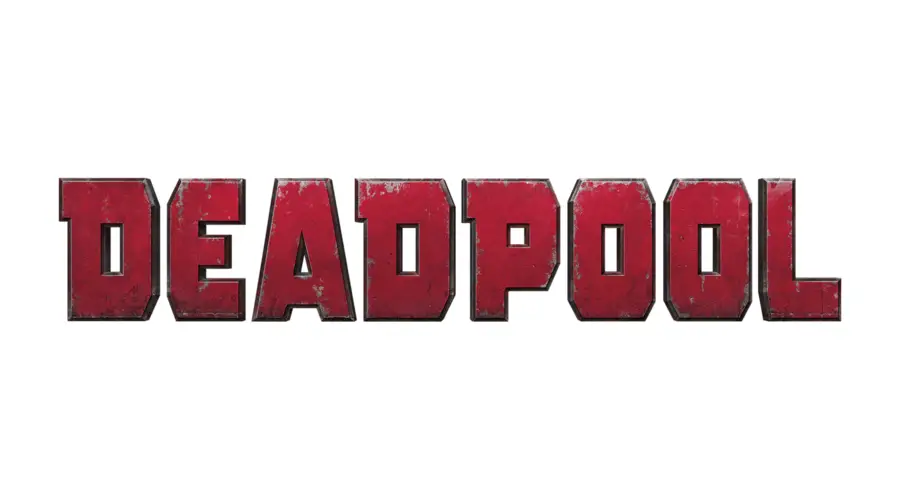
Quick answer: Marvel’s public Deadpool page shows the movie logo but does not name a downloadable official typeface. Rogue Hero and 946 Latin Dense 5 are useful alternatives for comparing the heavy, condensed comic-title feel; neither is presented here as Marvel’s logo source.
Use the logo and posters on Marvel’s official Deadpool movie page as the primary visual reference. The page identifies the film and displays official artwork, but it does not provide a public font credit. That absence is why this guide uses “alternative” rather than “replica” or “original.”
Preview Deadpool-style alternatives
Rogue Hero offers an angular comic-book voice, while 946 Latin Dense 5 provides a more structured condensed display option. Compare the same short word in both, then judge width, counters, and edge treatment instead of choosing only from the sample image.
What the visual comparison shows
The official mark combines very heavy letters, tight spacing, and designed distress or cut details. Those effects can come from custom artwork rather than the underlying font. A close alphabet can still need manual spacing, texture, and shape edits, so the result should be described as inspired by the visual language rather than an exact reproduction.
For an original action-comic title, use a short uppercase phrase, high contrast, and one controlled distressed treatment. Keep the word readable before adding texture. A condensed face leaves room for a symbol or subtitle, but it should not be paired with Marvel characters or marks in a way that suggests an official product.
How to build a responsible inspired design
- Preview the exact uppercase wording in both alternatives.
- Add texture on a separate layer so legibility can be checked.